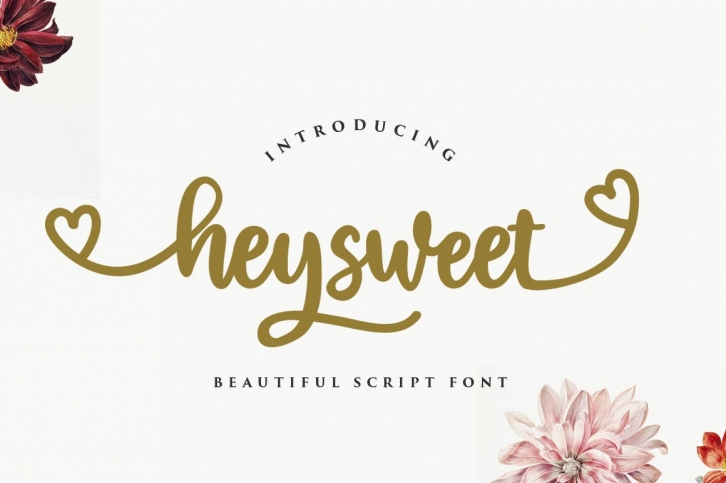
Heysweet is a gorgeous font that was realeased on November 10, 2020. The font can be used in many style contexts and design environments. Perfect for invitations, magazines, websites, logos, and more! It was designed by hugefonts and the file size is 16.13 MB. Thanks for checking out this font!